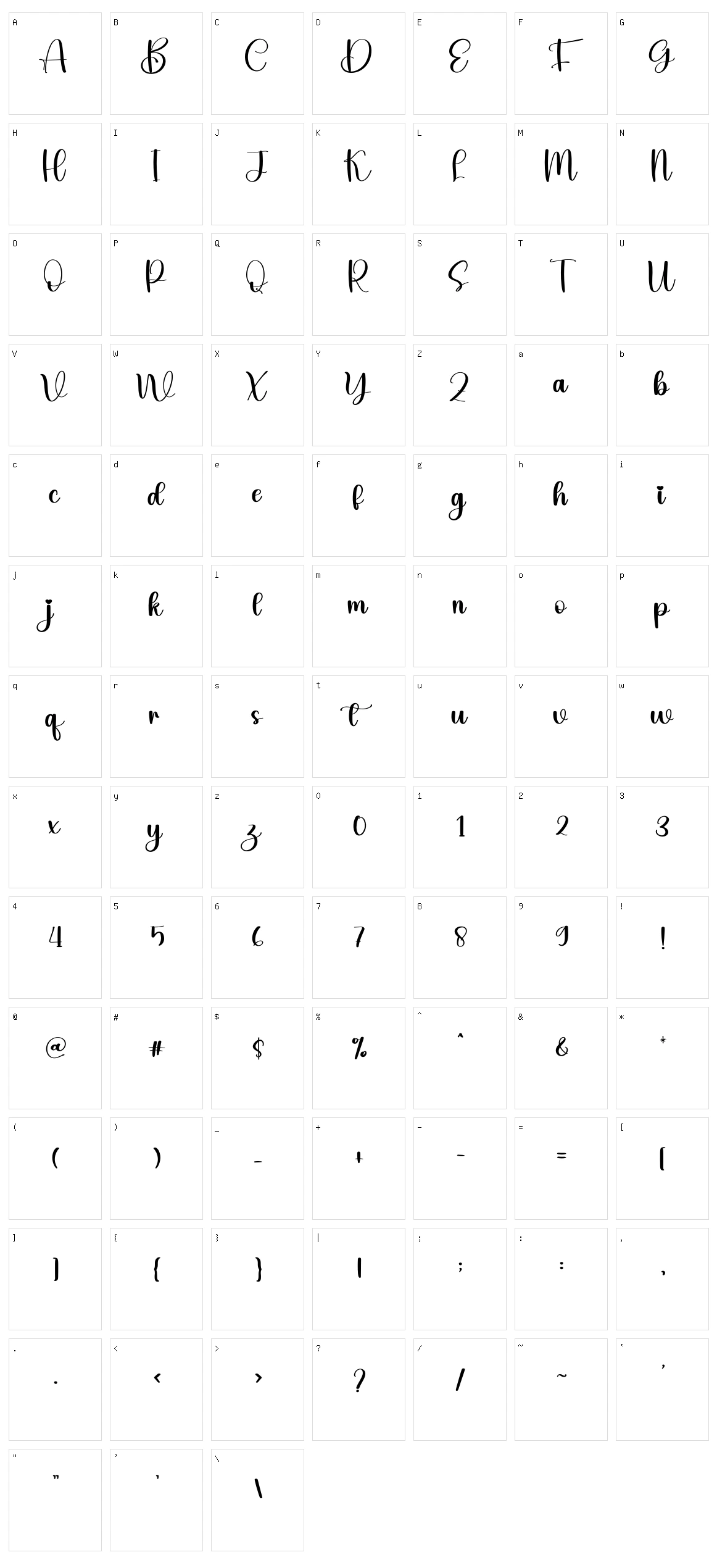
The free font Back is carefully designed by Inermedia Studio, showcasing a thoughtful balance of creativity and usability and falls under the Script font style. When you download the ZIP file, it contains only 158.56 KB of font files, making it lightweight and quick to download. Please review the license details below to understand permitted usage and distribution rights. If license information is not available, we recommend using this font for personal projects only or contacting the author directly for commercial usage permissions.